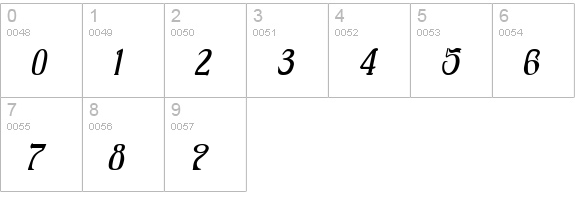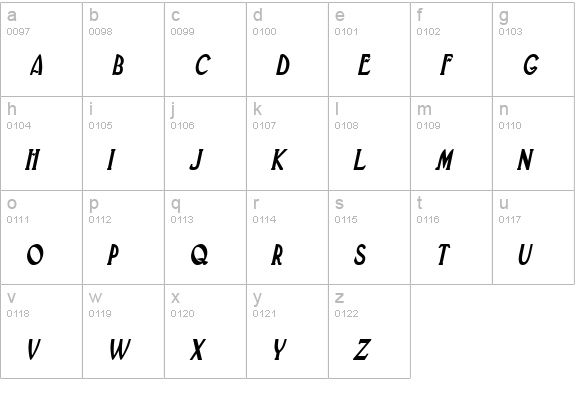
Deco-Condensed Bold Italic Font Details
Deco-Condensed Bold Italic is a strong, high-contrast, condensed-width, italic variant in the Deco typeface family \xE2\x80\x94 well suited to headlines, attention-grabbing titles, and strong calls-to-action.
The Deco-Condensed Bold Italic font exudes a sense of modernity and sophistication with its sleek, condensed design and bold italic styling. Perfect for adding a touch of elegance and flair to any project, this font is a versatile choice for both professional and creative endeavors. What sets this font apart is its unique blend of Art Deco-inspired elements and contemporary aesthetics, making it a standout choice for those looking to make a bold statement with their typography. Whether used for headlines, logos, or branding materials, the Deco-Condensed Bold Italic font is sure to capture attention and leave a lasting impression. The best part? This stunning font is available for free download at FontsMarket.com, making it easily accessible to designers, creatives, and enthusiasts alike. Don't miss out on the opportunity to elevate your designs with the Deco-Condensed Bold Italic font today!